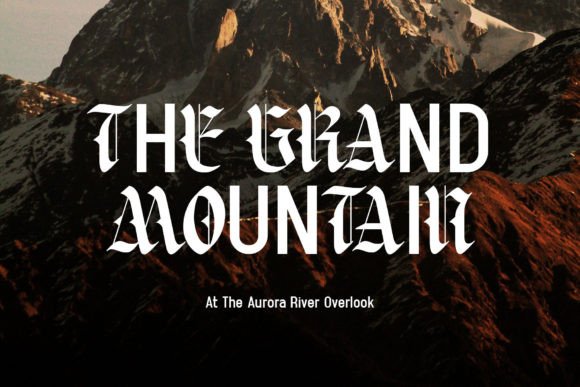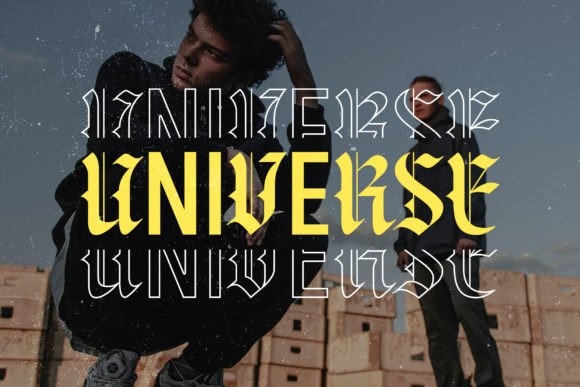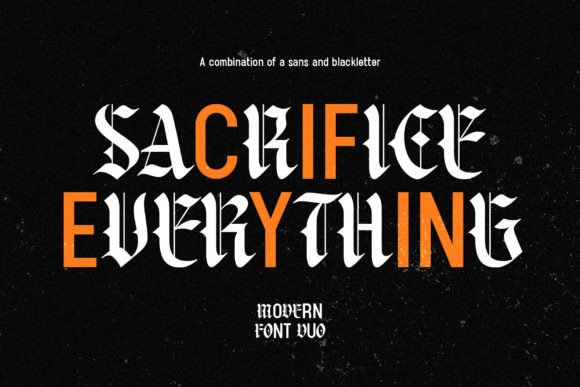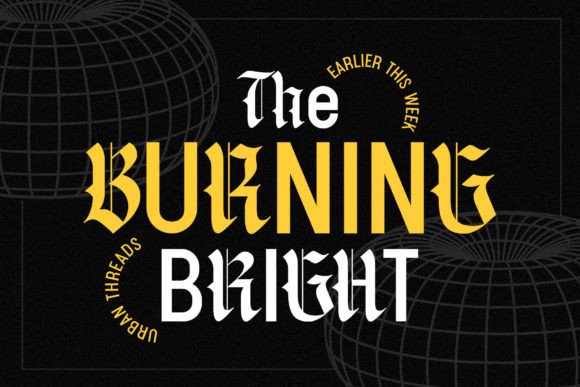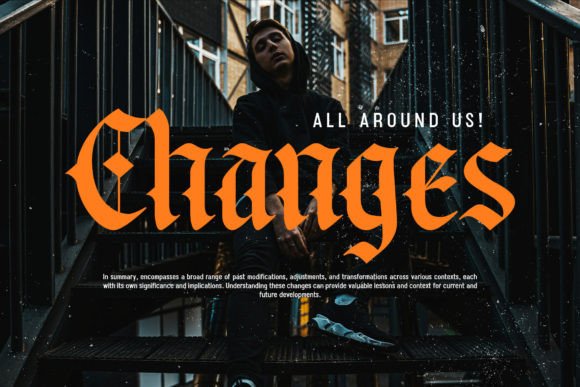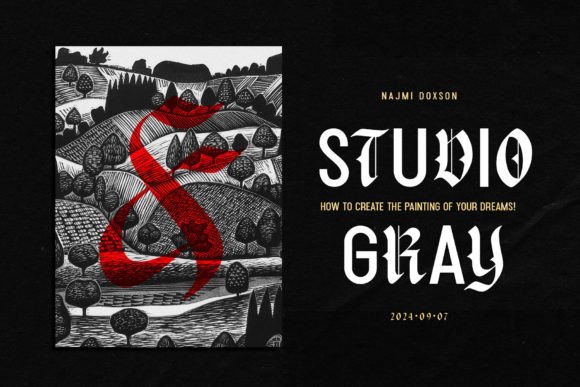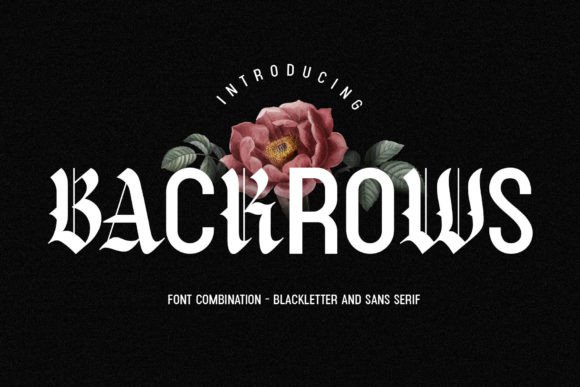
Introducing Backrows Font: A Unique Blend of Blackletter and Sans Serif
In the world of typography, finding the perfect font can be a daunting task. Designers and crafters are constantly on the lookout for unique and versatile fonts that can elevate their work. Look no further than Backrows Font, a captivating blend of blackletter and sans serif fonts that offers an elegant and modern aesthetic.
A Perfect Harmony of Styles
Backrows Font brings together the best of both worlds, combining the ornate and sophisticated feel of blackletter fonts with the clean and modern look of sans serif fonts. This unique combination allows for a wide range of design possibilities, making it perfect for various applications. The blackletter elements add a touch of elegance and refinement, while the sans-serif elements soften the boldness, creating a balanced and harmonious look.
Alternate Characters for Endless Possibilities
One of the standout features of Backrows Font is its additional alternate characters. These characters allow designers to mix and match, creating stunning typography that is both unique and eye-catching. With a range of options at your disposal, you can experiment with different combinations to find the perfect look for your project.
Backrows Font is incredibly versatile, making it suitable for a variety of applications. Use it for:
- Titles and Headlines: Add a touch of sophistication to your titles and headlines with Backrows Font’s elegant and modern aesthetic.
- Labels and Branding: Create eye-catching labels and branding materials that stand out from the crowd.
- Book Covers: Add a touch of elegance to your book covers with Backrows Font’s unique blend of blackletter and sans serif fonts.
- Social Media Graphics: Elevate your social media graphics with Backrows Font’s modern and sophisticated look.
- Magazines and Illustrations: Use Backrows Font to add a touch of class and sophistication to your magazines and illustrations.
- Badges and Fashion: Create stunning badges and fashion designs with Backrows Font’s unique and eye-catching typography.
- Urban Design: Use Backrows Font to add a touch of modernity and sophistication to your urban design projects.
Why Choose Backrows Font?
So, why choose Backrows Font over other fonts on the market? Here are just a few reasons:
- Unique Blend: Backrows Font offers a unique blend of blackletter and sans serif fonts, making it stand out from other fonts.
- Versatility: Backrows Font is incredibly versatile, making it suitable for a wide range of applications.
- Elegant and Modern: Backrows Font offers an elegant and modern aesthetic, making it perfect for designers and crafters who want to elevate their work.
- Alternate Characters: Backrows Font’s additional alternate characters allow for endless design possibilities.
In conclusion, Backrows Font is a game-changer for designers and crafters. Its unique blend of blackletter and sans serif fonts, combined with its additional alternate characters, makes it the perfect choice for a wide range of applications. Whether you’re working on a title, headline, label, or branding material, Backrows Font is sure to elevate your work. So why wait? Try Backrows Font today and experience the power of elegant and modern typography.